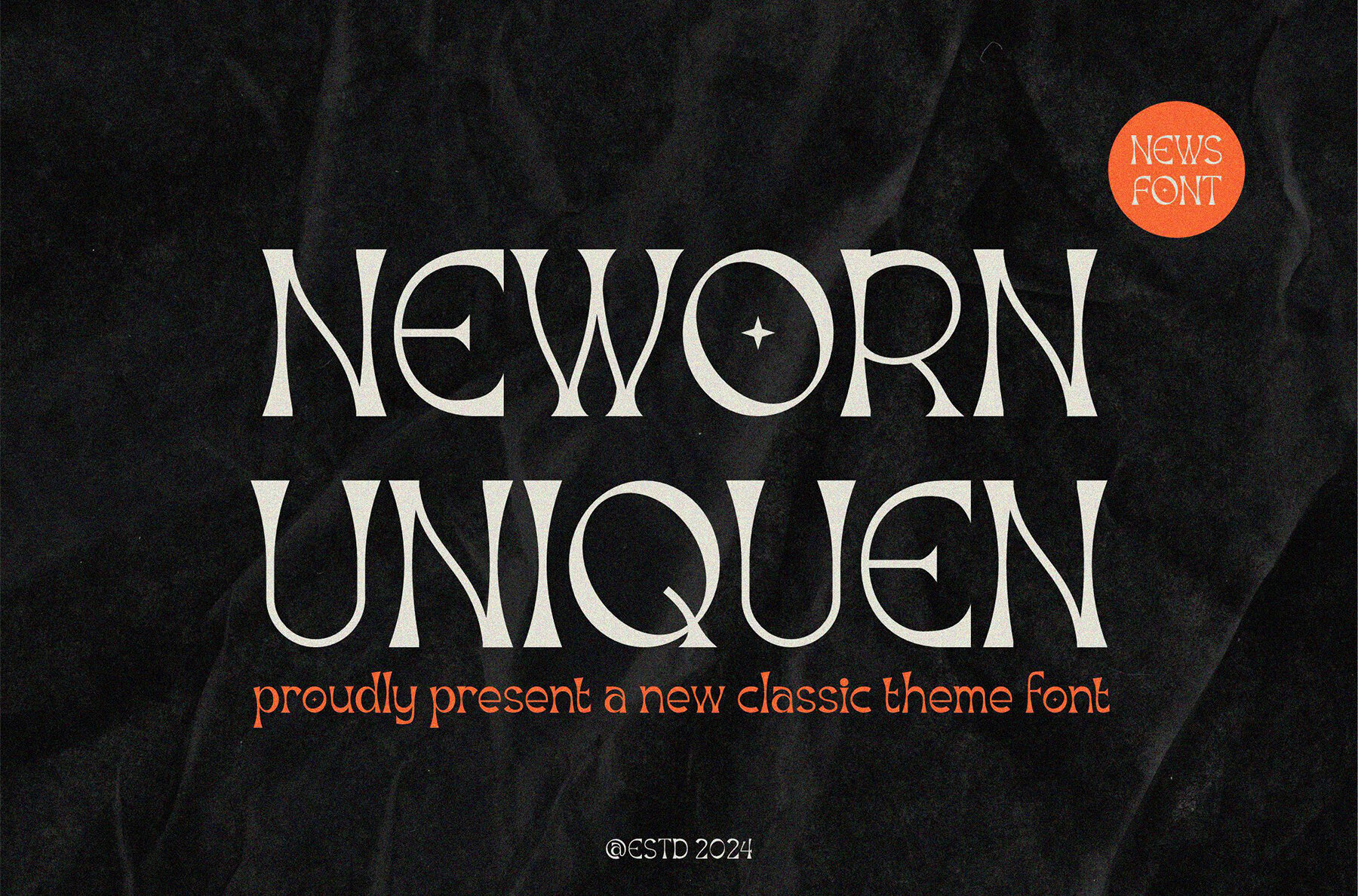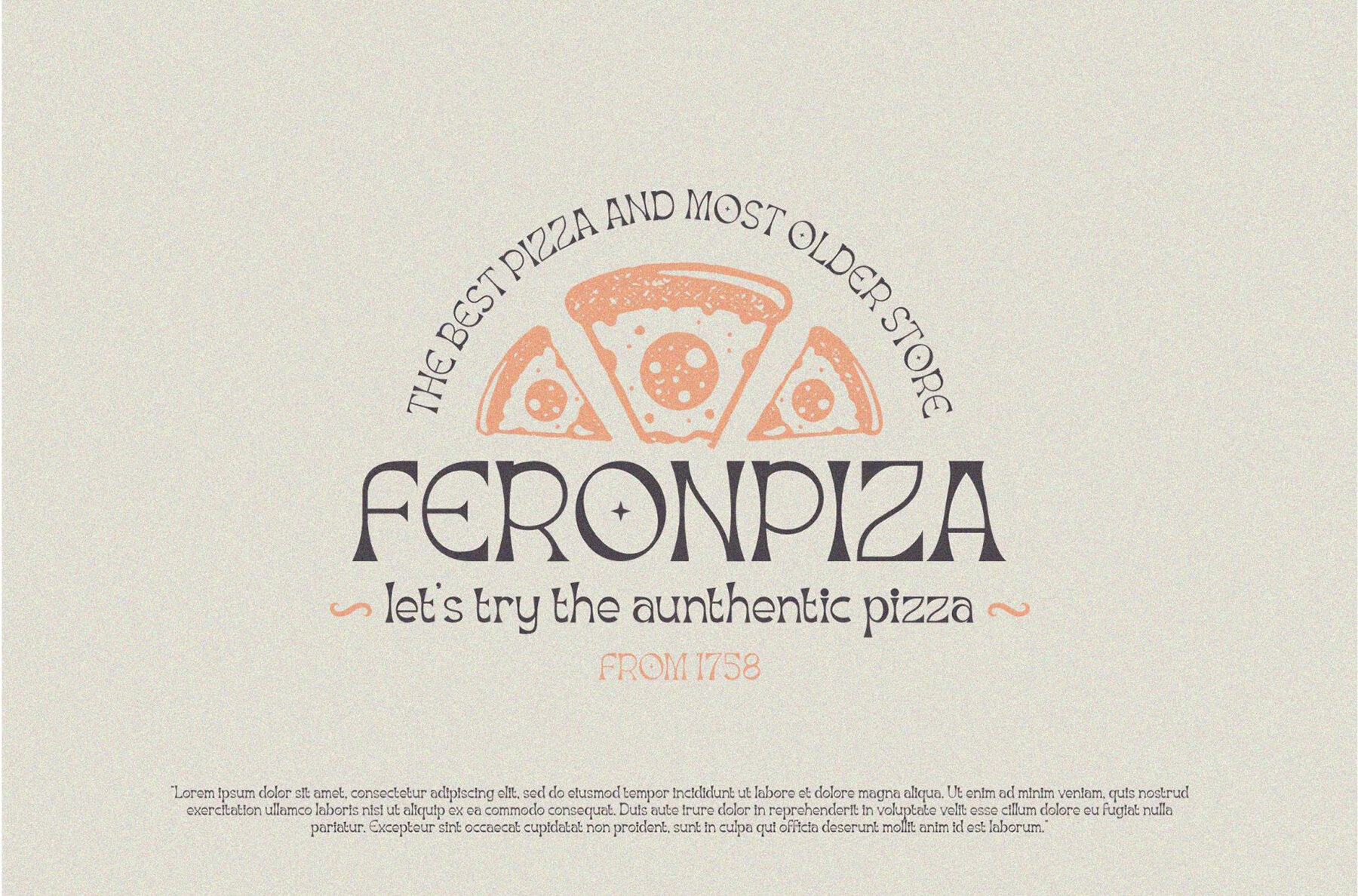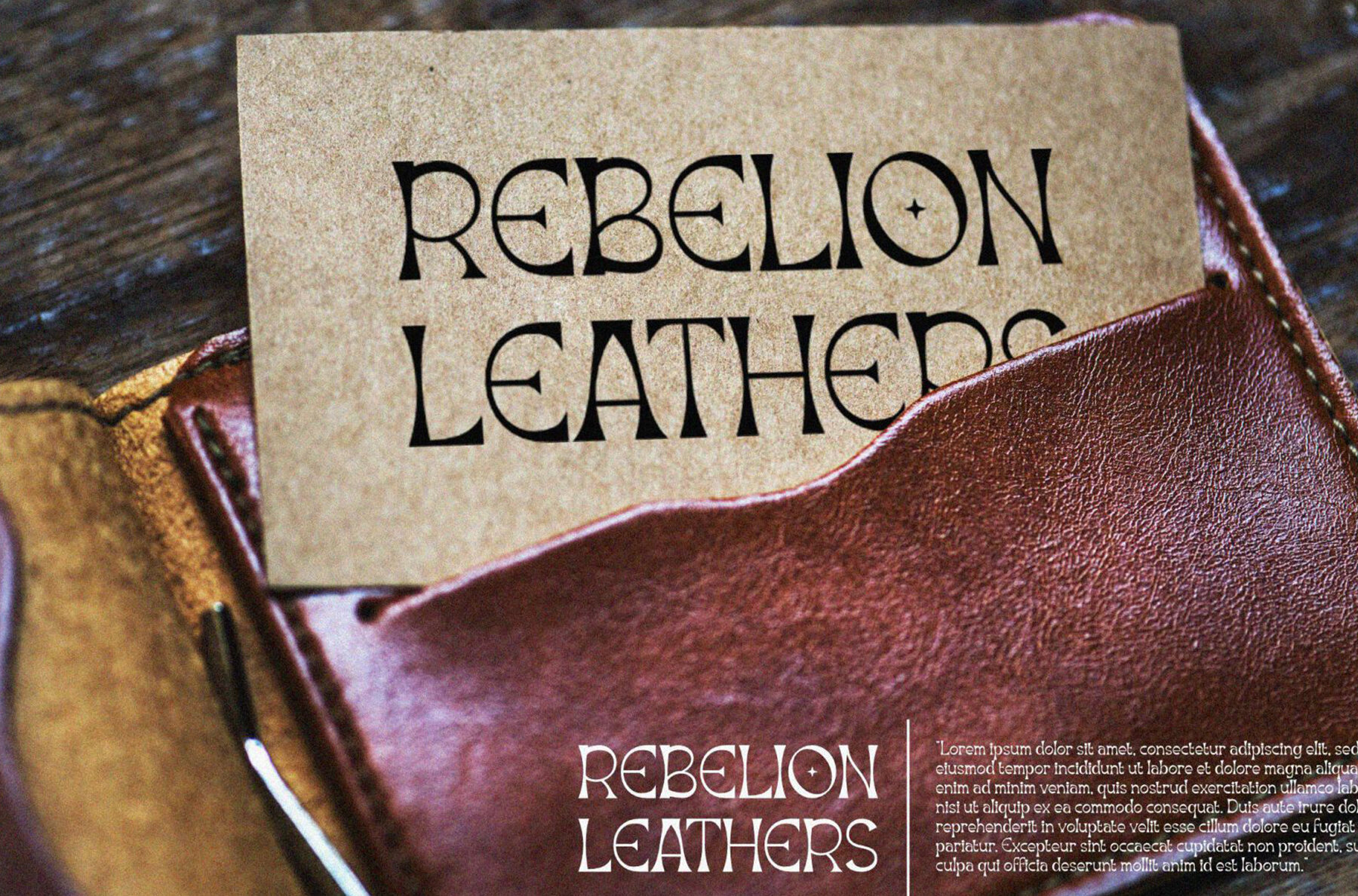
Neworn Uniquen Font
Neworn Uniquen
Neworn Uniquen is a new classic font with a timeless appeal, perfect for designers seeking to add a touch of elegance to their projects. This versatile typeface pairs seamlessly with various design contexts, making it an ideal choice for invitation cards, company logos, film titles, and business cards. Its elegant style and refined alternations lend a sophisticated touch, suitable for book titles and brand names alike.
The unique characteristics of Neworn Uniquen set it apart as a reliable partner for creative endeavors. Its stylish alternations and seamless binding ensure a cohesive look across diverse applications, offering an elevated visual expression for any design. This font's classic roots combined with modern sensibilities make it highly adaptable and engaging, providing a distinctive presence in any project you undertake.